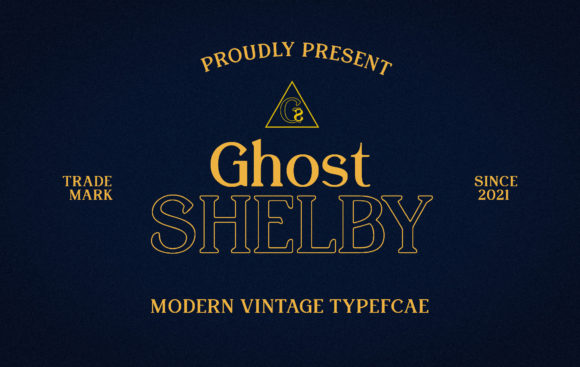
Introducing Ghost Shelby, the serif whisper of vintage-modern elegance, a font family that mesmerizes with its captivating serif strokes and evocative charm. Each letterform is a testament to the artistry of inkspirate.design, embodying a timeless beauty that transcends the boundaries of contemporary typography.
Unleash the power of Ghost Shelby and transport your creative visions into realms of sophistication and distinction. Whether you're a designer seeking a unique voice for your branding or a creative professional yearning to evoke an air of timeless elegance in your projects, Ghost Shelby stands as your steadfast companion.
With its versatility, Ghost Shelby effortlessly adapts to a myriad of design landscapes. Gracefully adorn your posters with its refined lines, making every word a visual masterpiece. Let Ghost Shelby lend its eloquence to your advertising campaigns, imbuing your messages with a timeless allure that resonates with your audience. It is the perfect choice for book covers, where its elegant curves and delicate serifs create an aura of literary sophistication.
But Ghost Shelby's allure extends beyond the realm of traditional design. Its vintage-modern charm finds harmony in the digital realm, adding a touch of class to your website or social media presence. Craft captivating style quotes with Ghost Shelby, allowing the font's inherent beauty to elevate your words into works of art.
Experience the magic of Ghost Shelby today and witness how its timeless elegance transforms your creative endeavors into captivating masterpieces. Let Ghost Shelby be your font of choice for minimal design, where its delicate strokes and understated beauty create a visual symphony that speaks volumes.
Ghost Shelby, the font that whispers sophistication, awaits your creative embrace. Let it be the key that unlocks a world of timeless beauty and distinction in your designs.